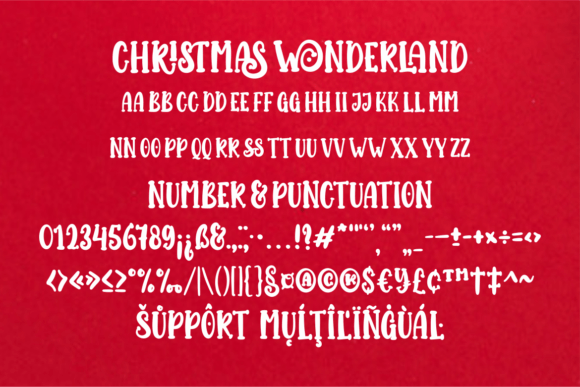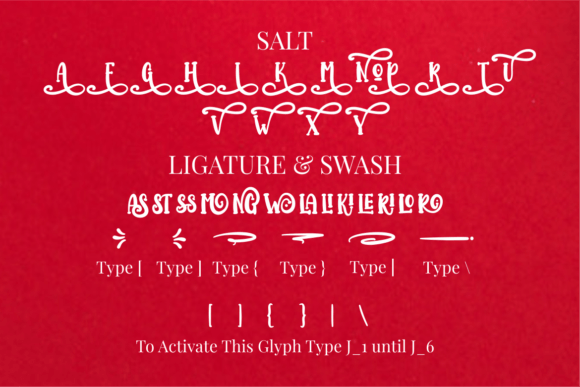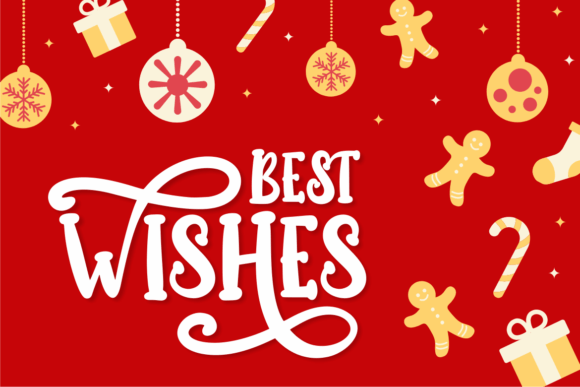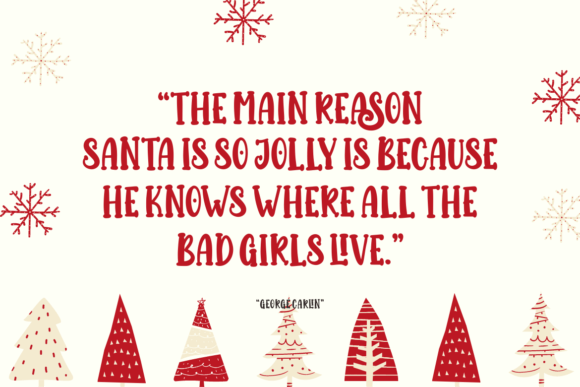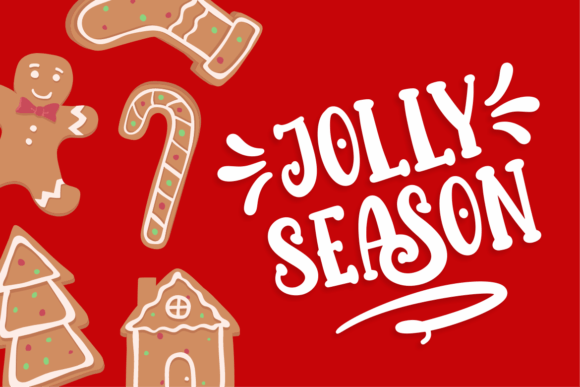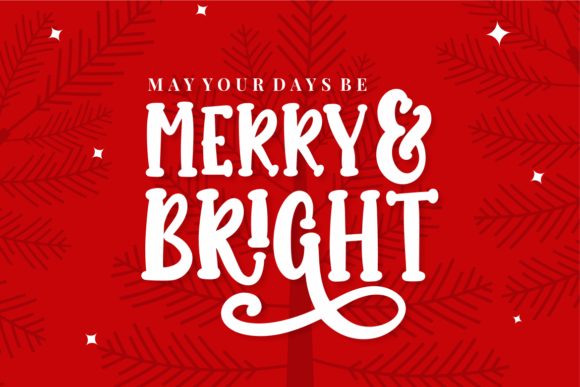
Introducing Christmas Wonderland Font: Add a Touch of Holiday Cheer to Your Designs
Are you looking for a font that captures the essence of the holiday season? Look no further than Christmas Wonderland Font, a playful handwritten display font that’s perfect for adding a touch of happiness to your Christmas projects. In this article, we’ll take a closer look at this festive font and explore its features, benefits, and uses.
What is Christmas Wonderland Font?
Christmas Wonderland Font is a modern, handwritten display font designed specifically for the holiday season. Its playful and cheerful style makes it ideal for a wide range of applications, from greeting cards and headlines to social media graphics and craft projects. This font is sure to bring a smile to anyone’s face, making it the perfect addition to your holiday designs.
Key Features of Christmas Wonderland Font
- Playful Handwritten Style: Christmas Wonderland Font features a playful, handwritten style that’s perfect for creating festive and fun designs.
- PUA Encoded: This font is PUA (Private Use Area) encoded, which means you can access all the amazing glyphs and ligatures with ease.
- Wide Range of Applications: From greeting cards to headlines, Christmas Wonderland Font is suitable for a wide spectrum of applications.
Benefits of Using Christmas Wonderland Font
So, why choose Christmas Wonderland Font for your holiday designs? Here are just a few benefits of using this festive font:
- Adds a Touch of Happiness: Christmas Wonderland Font is designed to bring a smile to anyone’s face, making it the perfect addition to your holiday designs.
- Increases Engagement: The playful and cheerful style of this font is sure to grab attention and increase engagement with your audience.
- Versatile: Christmas Wonderland Font can be used for a wide range of applications, from digital designs to print projects.
- Easy to Read: Despite its playful style, Christmas Wonderland Font is easy to read, making it perfect for headlines and titles.
Uses for Christmas Wonderland Font
So, what can you use Christmas Wonderland Font for? The possibilities are endless! Here are a few ideas to get you started:
- Greeting Cards: Create festive and fun greeting cards for the holiday season.
- Social Media Graphics: Add a touch of holiday cheer to your social media graphics and increase engagement with your audience.
- Headlines and Titles: Use Christmas Wonderland Font to create eye-catching headlines and titles for your holiday designs.
- Craft Projects: This font is perfect for crafters, and can be used for a wide range of projects, from paper crafting to woodworking.
Tips for Using Christmas Wonderland Font
Here are a few tips for using Christmas Wonderland Font in your designs:
- Experiment with Colors: Try pairing Christmas Wonderland Font with different colors to create a unique and festive look.
- Use it as a Title Font: This font is perfect for headlines and titles, so don’t be afraid to use it as a title font.
- Mix and Match with Other Fonts: Try pairing Christmas Wonderland Font with other fonts to create a unique and interesting look.
Christmas Wonderland Font is a playful and festive font that’s perfect for adding a touch of holiday cheer to your designs. With its PUA encoded feature, wide range of applications, and easy-to-use style, this font is sure to become a favorite among designers and crafters. Whether you’re creating greeting cards, social media graphics, or craft projects, Christmas Wonderland Font is the perfect choice. So why wait? Download Christmas Wonderland Font today and start creating your own festive and fun designs!